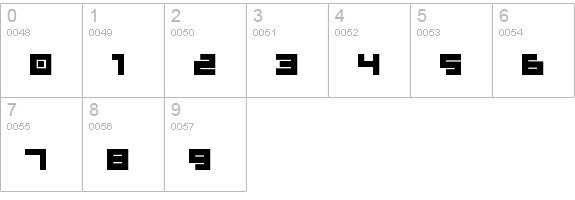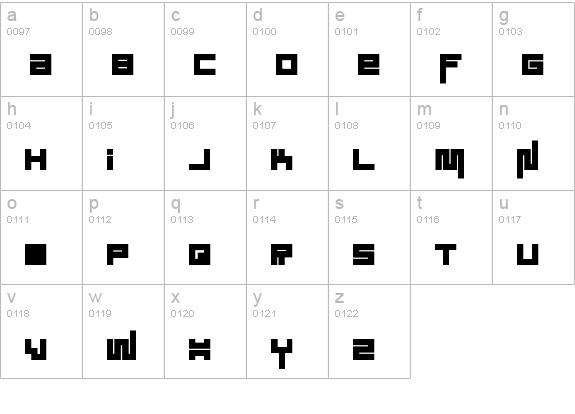
Sound System Regular Font Details
Sound System Regular is the standard, neutral variant in the Sound typeface family \xE2\x80\x94 well suited to general body text, paragraphs, and standard typographic work.
Sound System Regular font is a versatile and modern typeface that is perfect for various design projects. Its clean lines and balanced proportions make it easily readable in both small and large sizes. This font is ideal for creating attention-grabbing headlines, stylish logos, and impactful signage. One of the best things about Sound System Regular font is that it is free! Yes, you read that right. This amazing font can be downloaded for free at FontsMarket.com. You no longer have to worry about breaking the bank to get a high-quality font for your projects. With Sound System Regular font, you can elevate your designs without spending a dime. The aesthetic appeal of Sound System Regular font lies in its simplicity and elegance. It features a timeless design that will never go out of style. Whether you are working on a modern website, a vintage-inspired poster, or a sleek branding project, this font will effortlessly fit into your creative vision. Not only is Sound System Regular font visually appealing, but it is also highly legible. Its carefully crafted letterforms ensure that every character is easily distinguishable, even at smaller sizes. This makes it a great choice for body text as well as headlines. With Sound System Regular font, you have the freedom to explore your creativity without any limitations. Its extensive character set includes uppercase and lowercase letters, numbers, punctuation marks, and special symbols, allowing you to express your ideas in a variety of ways. So why wait? Download Sound System Regular font for free at FontsMarket.com and take your designs to the next level. Whether you are a professional designer or a hobbyist, this font will be a valuable addition to your toolkit. Don't miss out on this fantastic opportunity to enhance your projects with a high-quality font that won't cost you a penny.